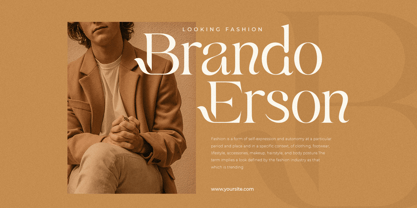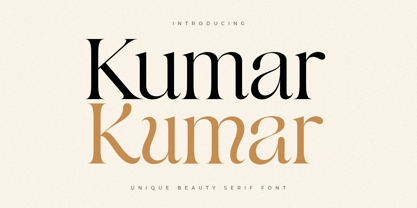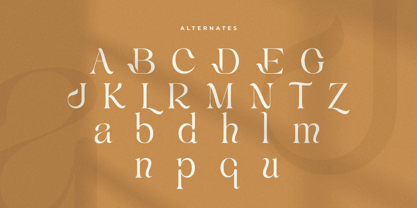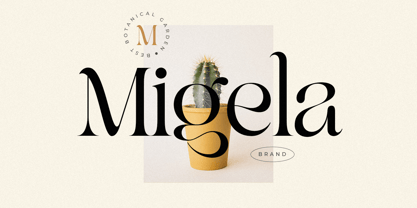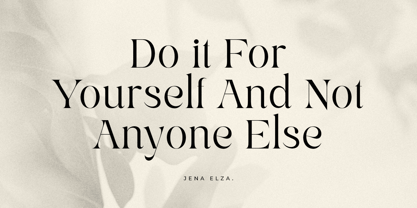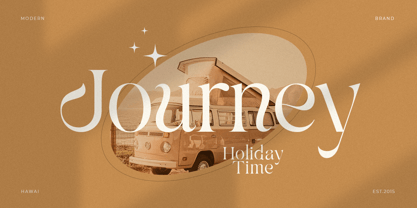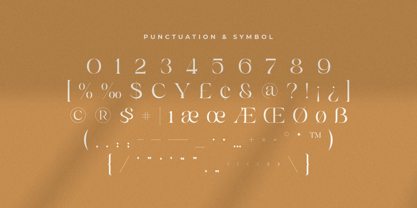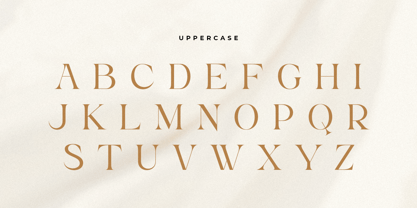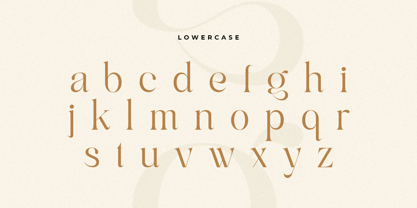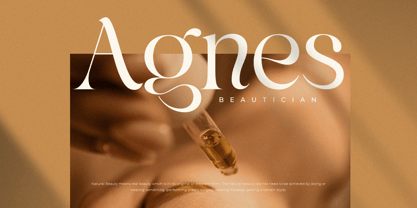
Kumar
by Sensatype Studio
The Kumar Font Family was designed by Zamroni Hamzah and published by Sensatype Studio. Kumar contains 1 styles. More about this family
A Beauty serif font that we created special for elegant branding needs, with extra alternates in unique shape will be ready to add value of your brand. It so nice to leverage designer or product owner that need solutions to make their design look more classy and modern. And specially for Kumar font, We prepared any alternate characters to help you create unlimited variations for your creative needs.
Kumar Beauty serif font ready with:
• Any options to get creative variations (combination of Alternate characters)
• Ready with Lowercase and Uppercase characters